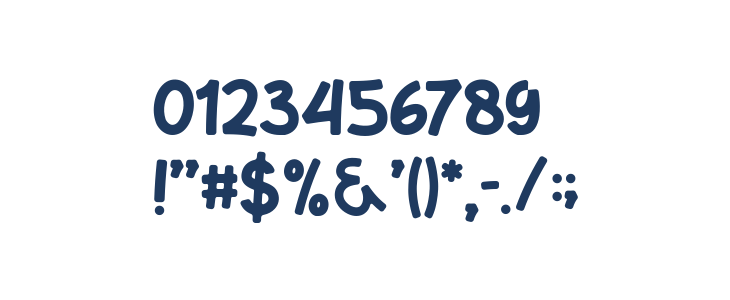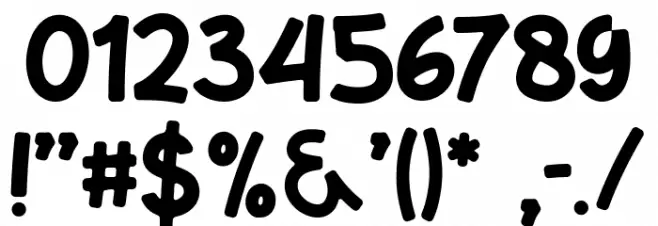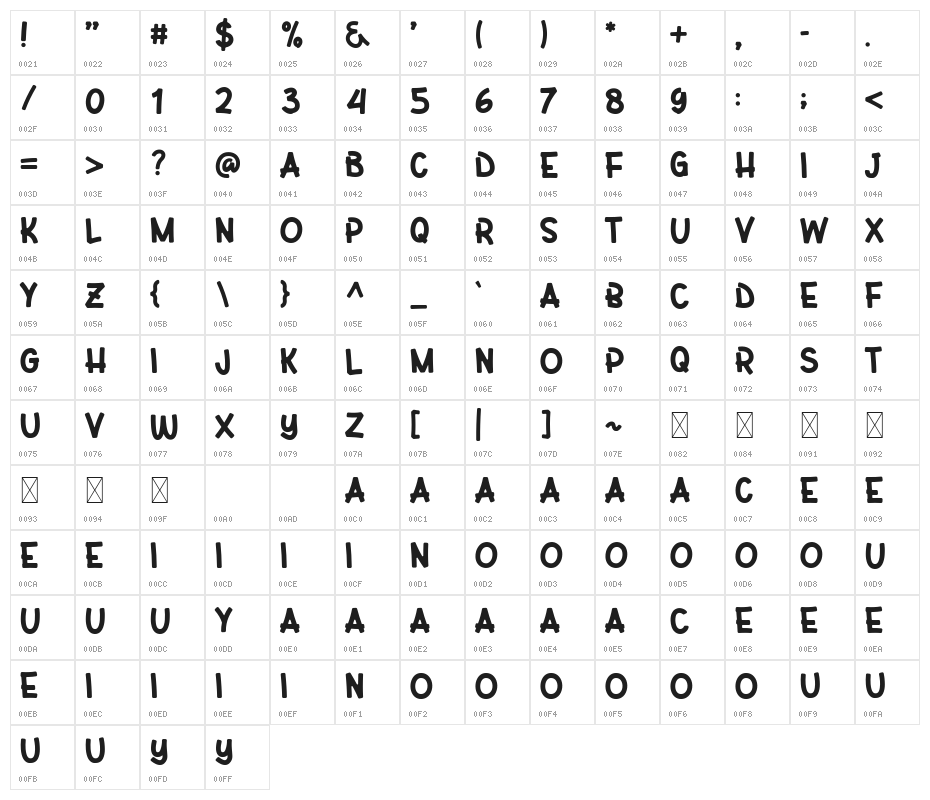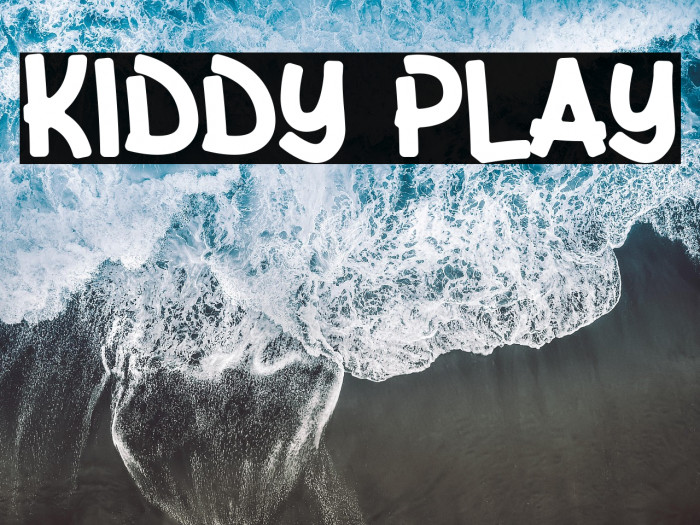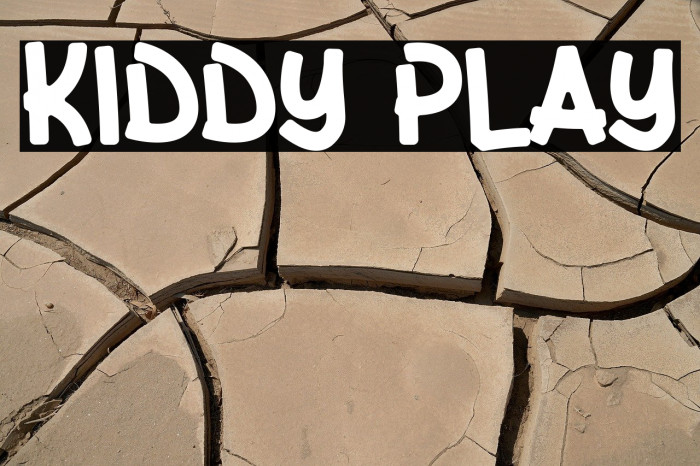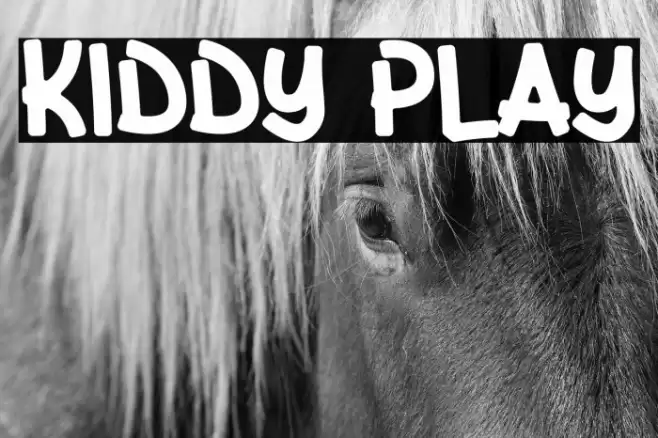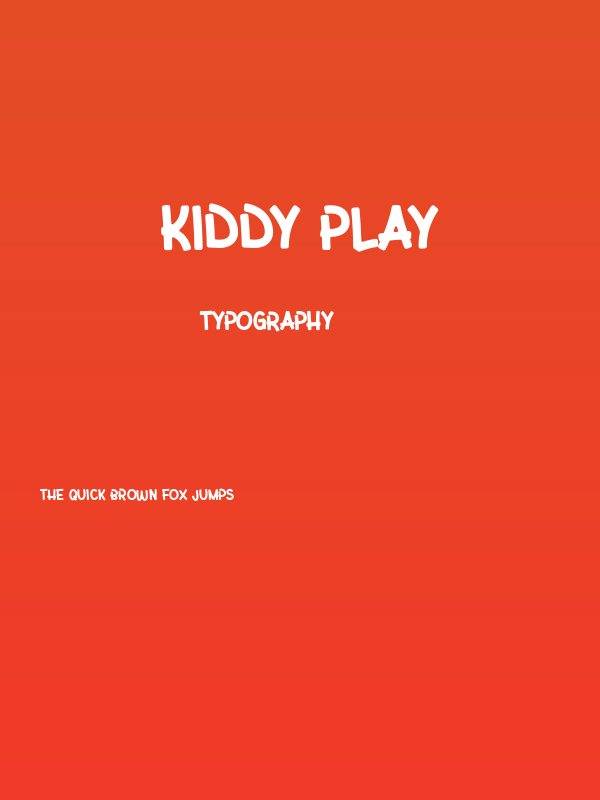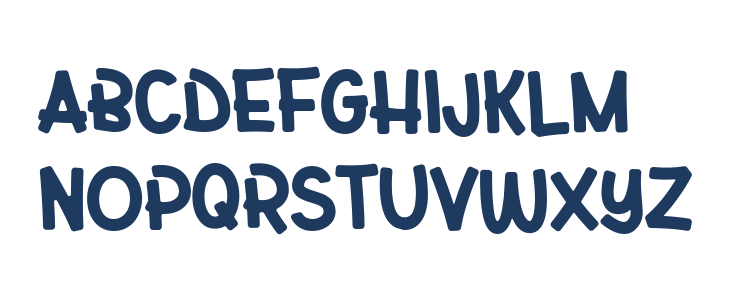
Kiddy Play Font
Kiddy Play Description
This playful and whimsical font features bold, rounded characters with a hand-drawn aesthetic. The letters are slightly irregular, giving them a fun and informal appearance. The strokes are thick and consistent, contributing to a strong visual presence. The font includes both uppercase and lowercase letters, numbers, and a variety of special characters. Its design is reminiscent of children's handwriting, making it ideal for projects that require a youthful and energetic vibe. The overall look is approachable and friendly, perfect for engaging a young audience.
| Proposed Projects | Ideal for children's books, educational materials, playful branding, and toy packaging. |